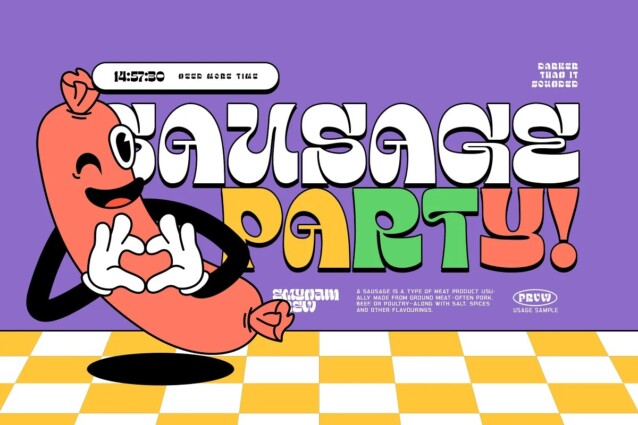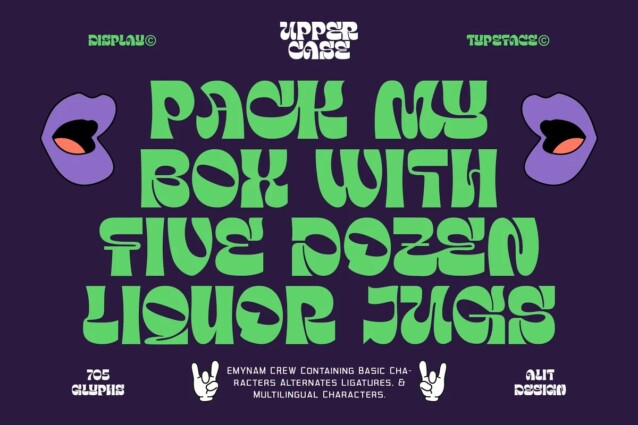
Emynam Crew Font
Emynam Crew Font is a retro-inspired font that evokes 1960s to 90s nostalgia. The font that’s bringing back the funky retro vibes of yesteryears with a modern twist. With its unique blend of style, flair, and a whopping 705 glyphs, this typeface is a must-have for anyone looking to make a statement.